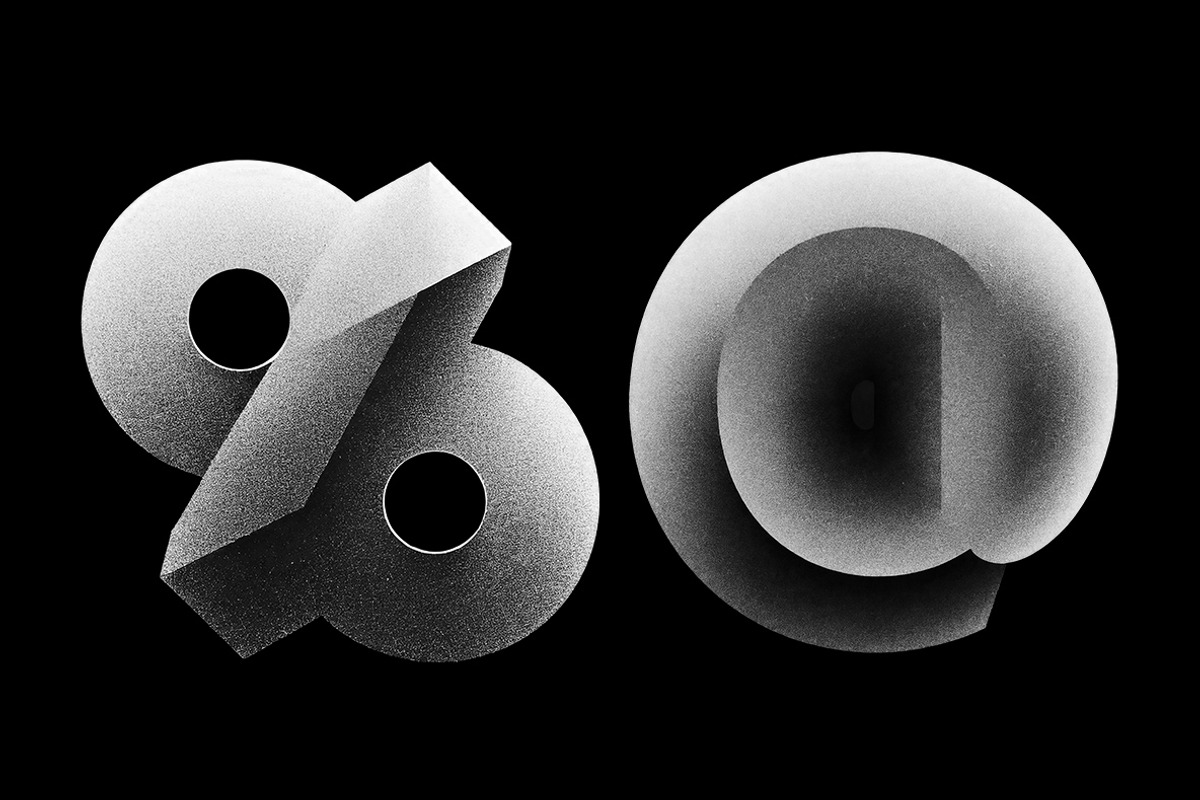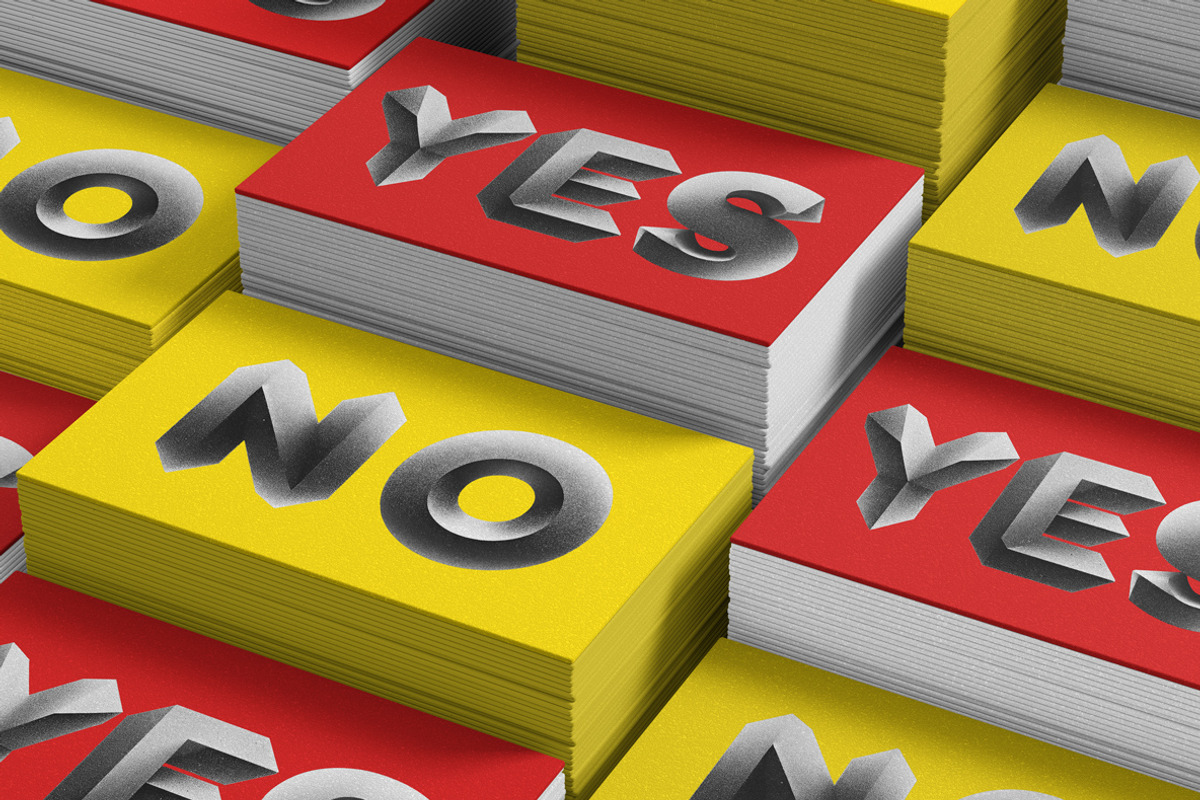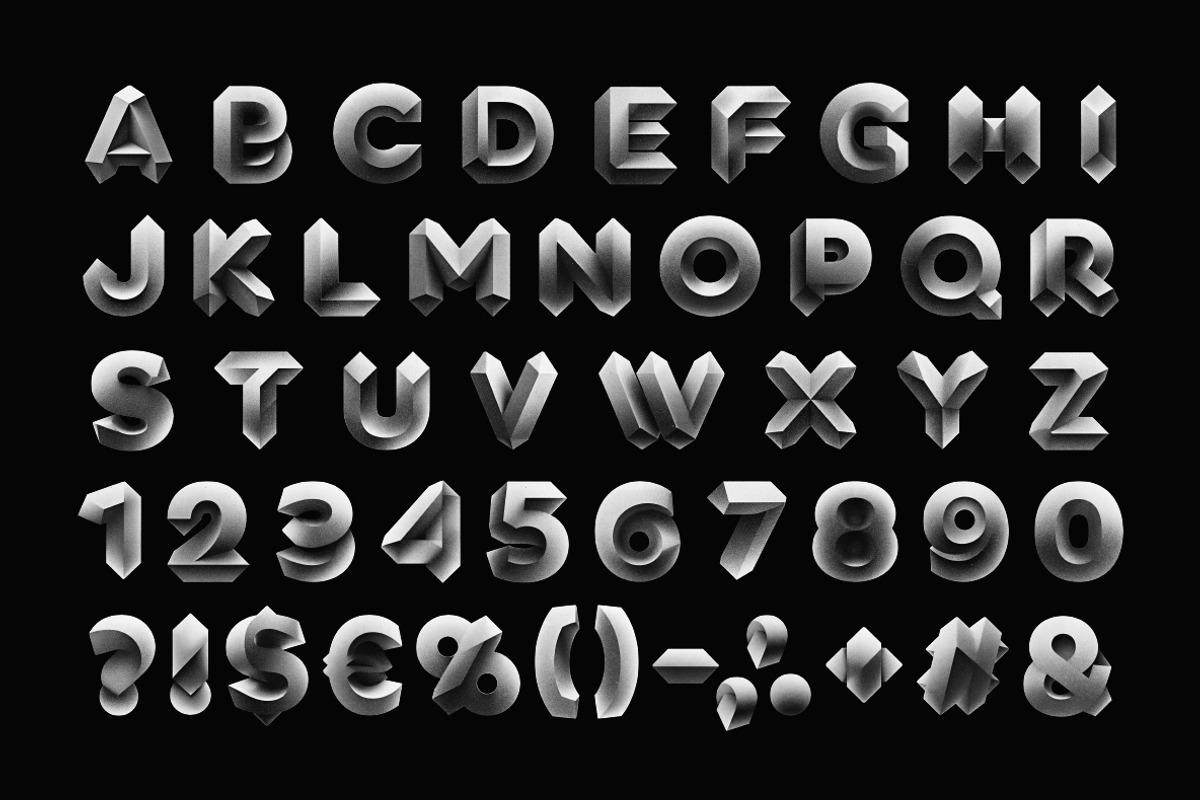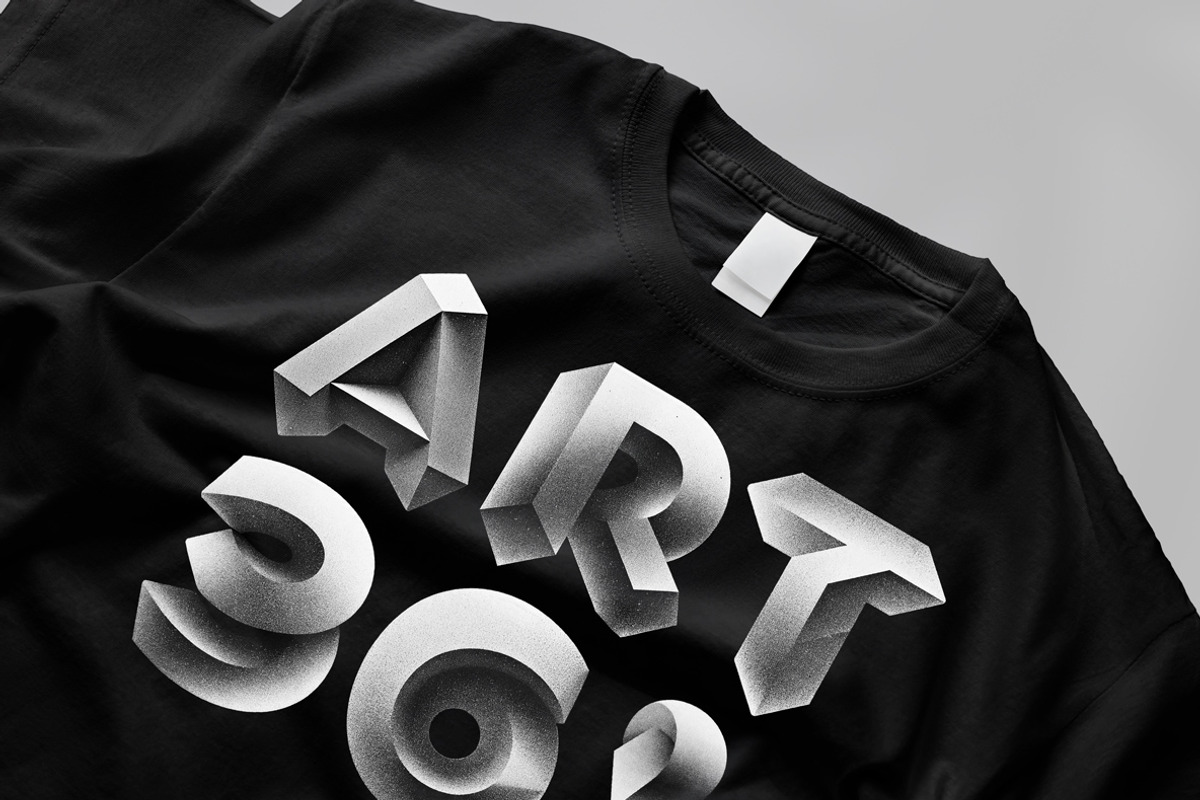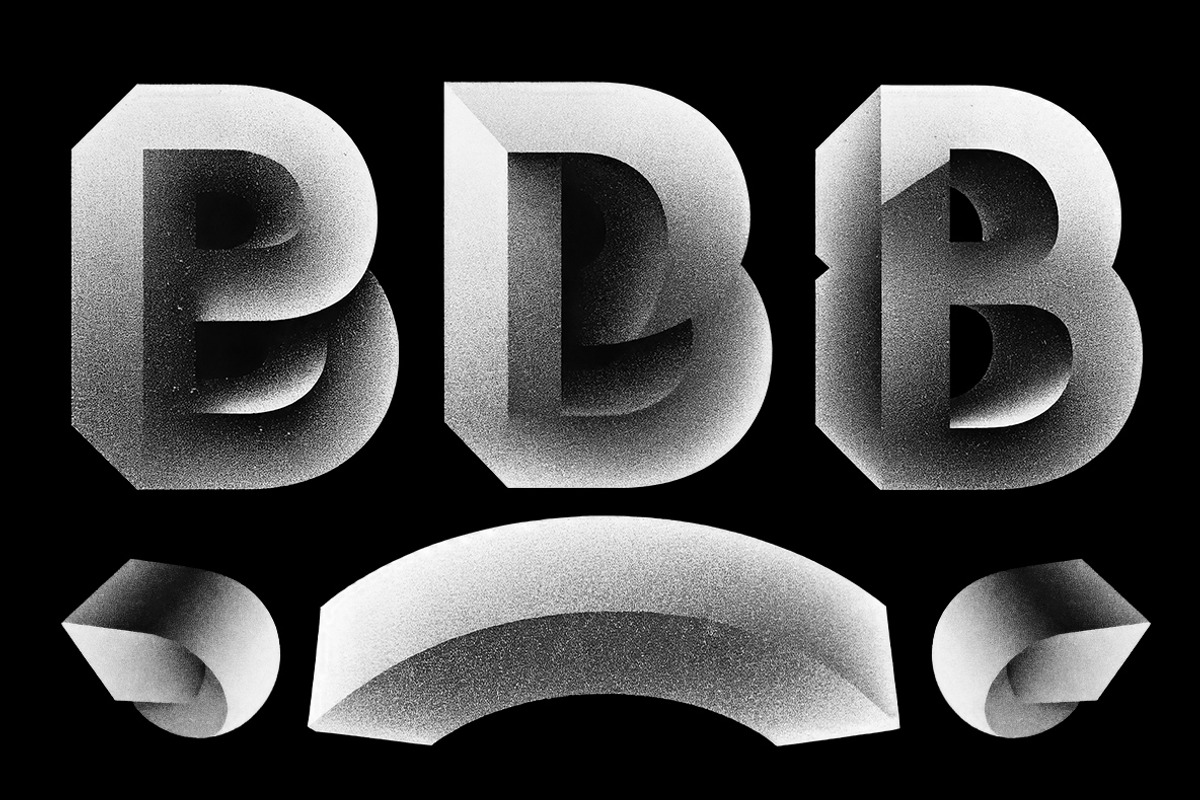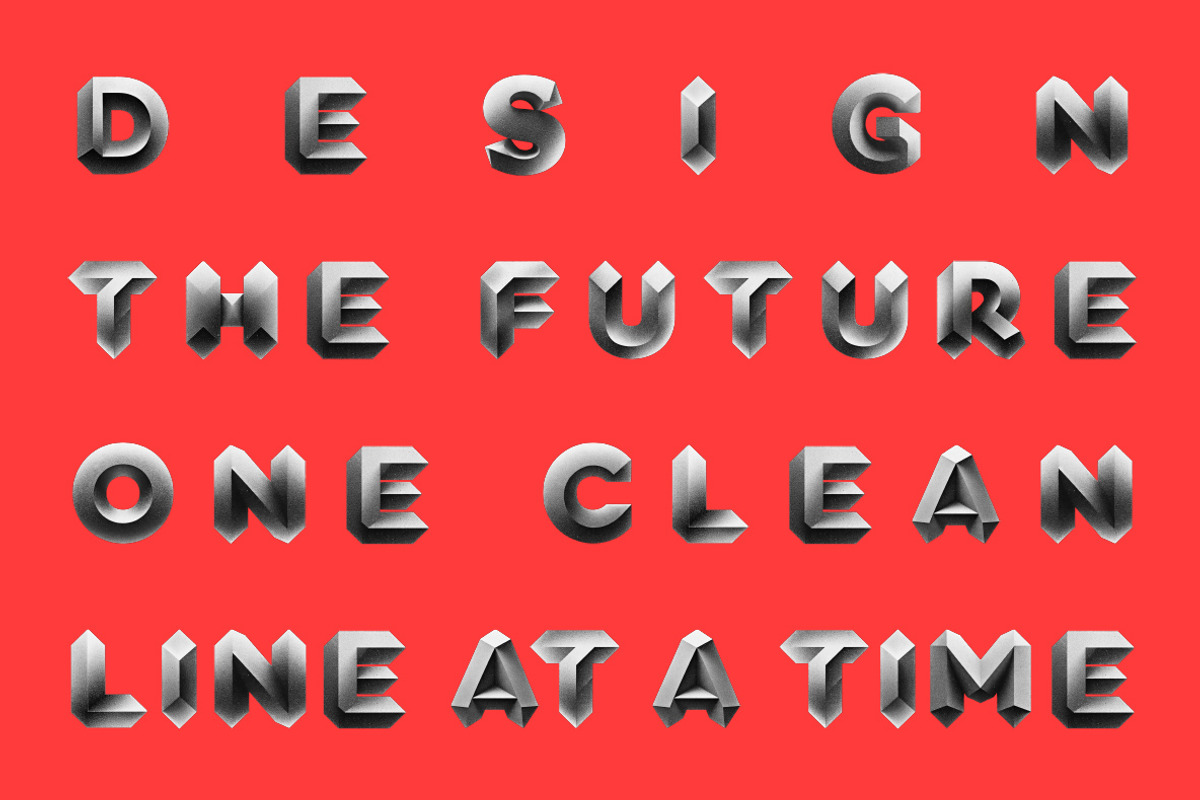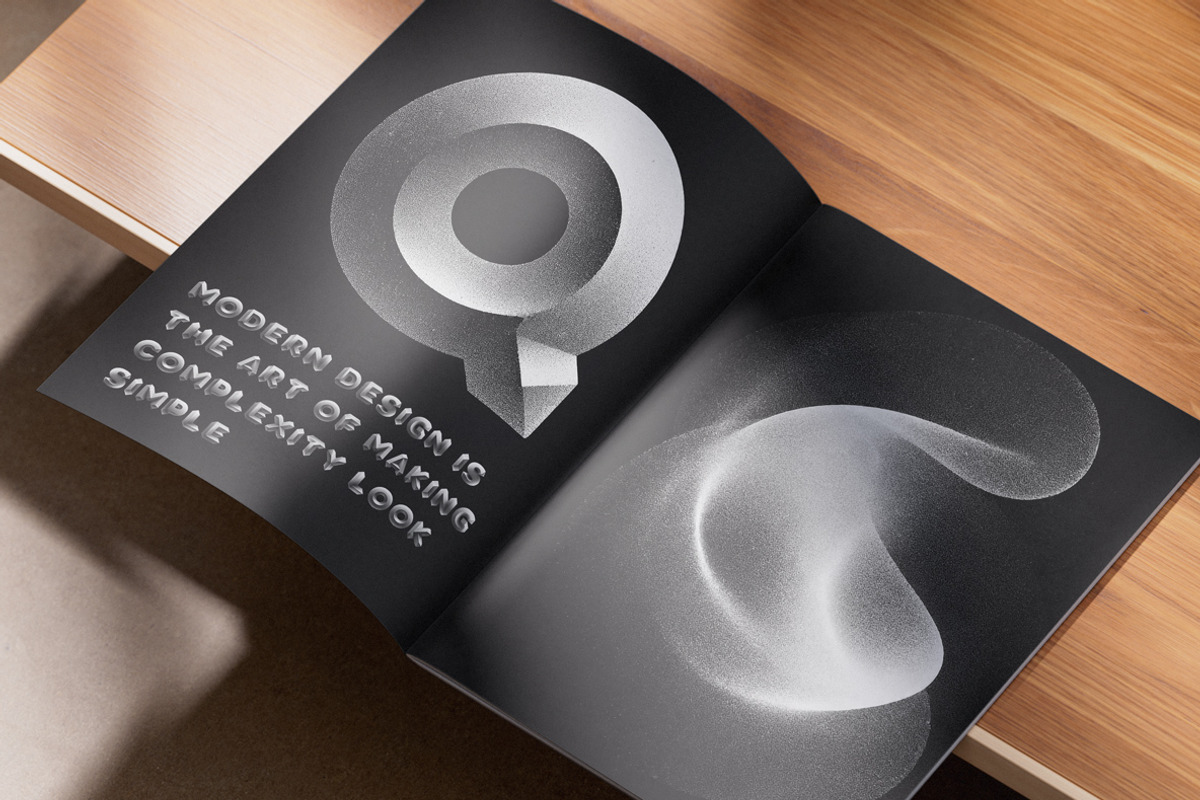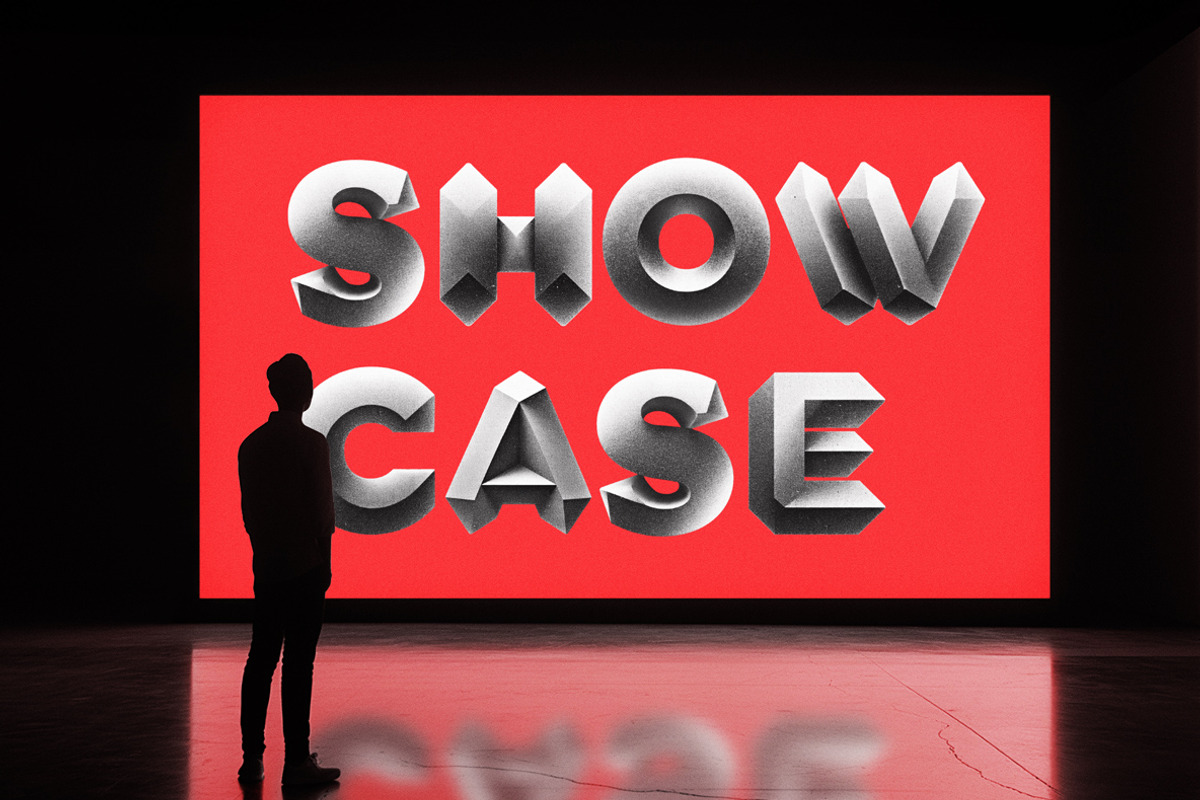
NeoRelic Font
Black, bold, and built for the future—NeoRelic Font isn’t just a typeface; it’s a statement. Each letter stands tall like a sci-fi monument, sculpted from the ruins of a high-tech civilization. A geometric font with an attitude, its angular, 3D typography feels robotic, almost sentient. The rough, grainy texture whispers of forgotten space stations and ancient AI secrets. This futuristic alphabet fuses modern design with fancy lettering, giving your words the edge of a cyberpunk prophecy. Whether crafting high-tech branding or sci-fi lettering for a dystopian masterpiece, NeoRelic makes every character look like it survived the digital apocalypse—gritty, striking, and impossibly cool.